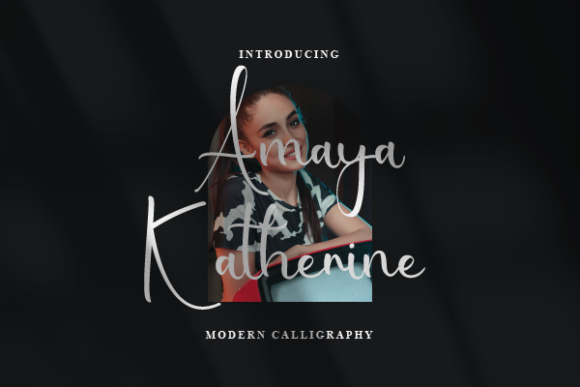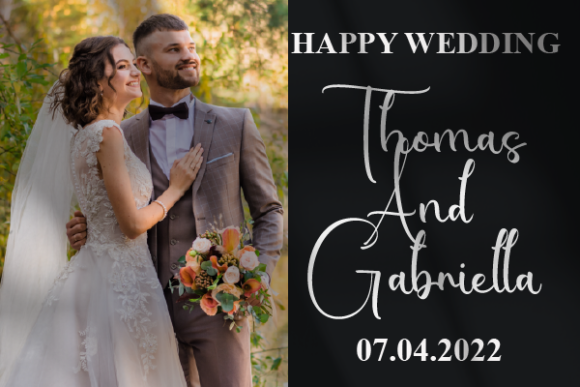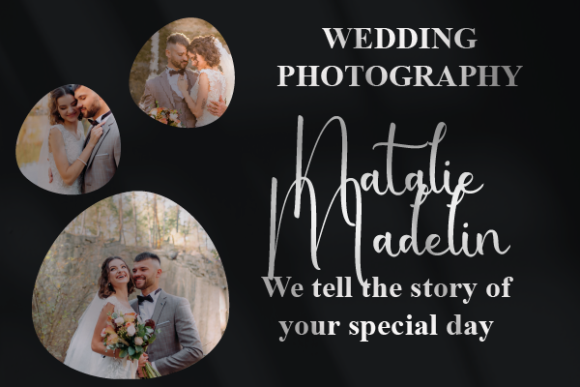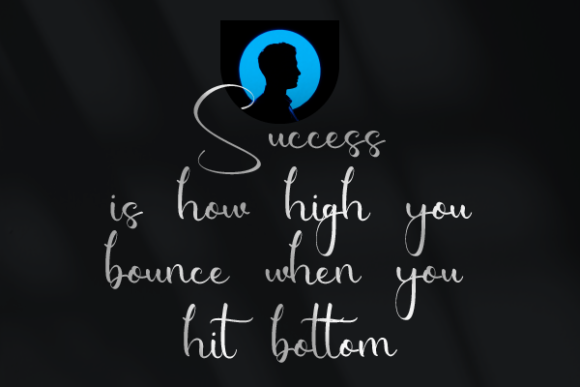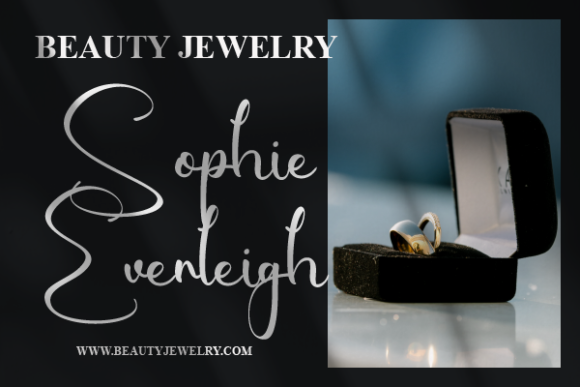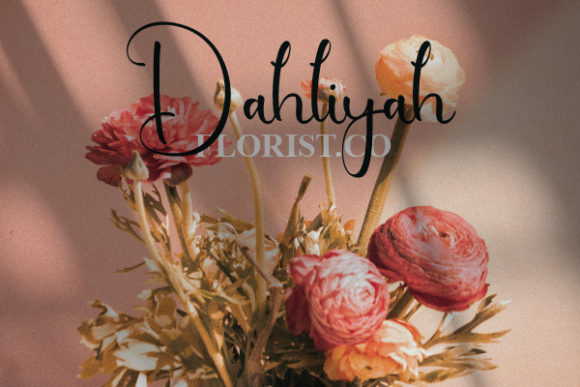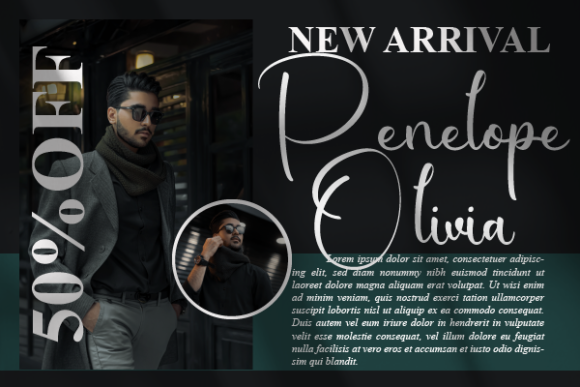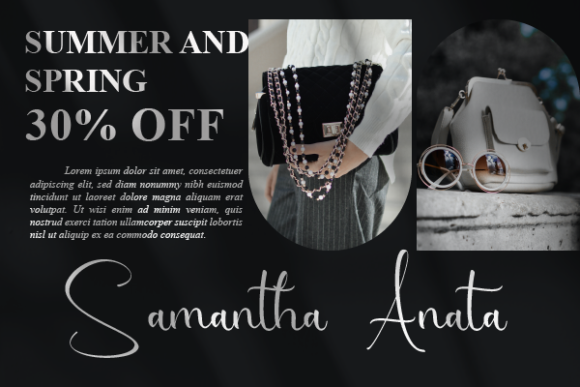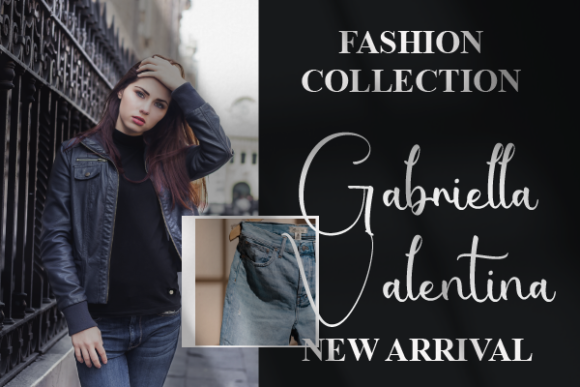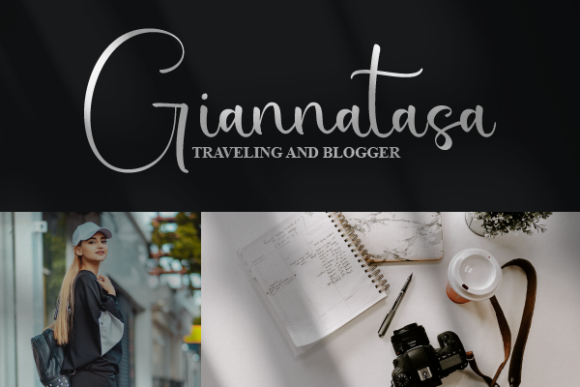
Amaya Katherine Font
About Amaya Katherine Font
Amaya Katherine is a superb handwritten font meticulously designed to make your work stand out with its elegant and curvy lines. This versatile font is well-suited for various applications, including product packaging, branding projects, magazine covers, social media graphics, wedding materials, and more. Whether you need a touch of sophistication for branding or a visually pleasing font to express words above a background, Amaya Katherine is crafted to elevate your designs.
The elegant and curvy lines of Amaya Katherine contribute to its overall aesthetic, bringing a sense of style and sophistication to your projects. This makes it suitable for a variety of design contexts, from formal branding to visually striking social media visuals.
Whether applied to product packaging or wedding invitations, Amaya Katherine is designed to enhance the visual impact of your designs. Its adaptability and unique characteristics make it a valuable asset for designers seeking a font that adds a touch of elegance and uniqueness to their creative projects.
In summary, Amaya Katherine is more than just a font; it’s a superb handwritten design asset crafted to enhance your work with its elegant and curvy lines. Its adaptability and distinctive qualities make it an excellent choice for making your designs stand out in various contexts, from branding to social media and beyond.